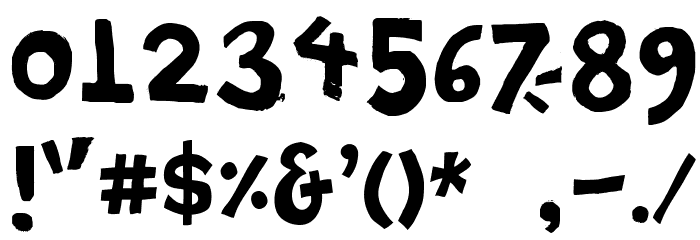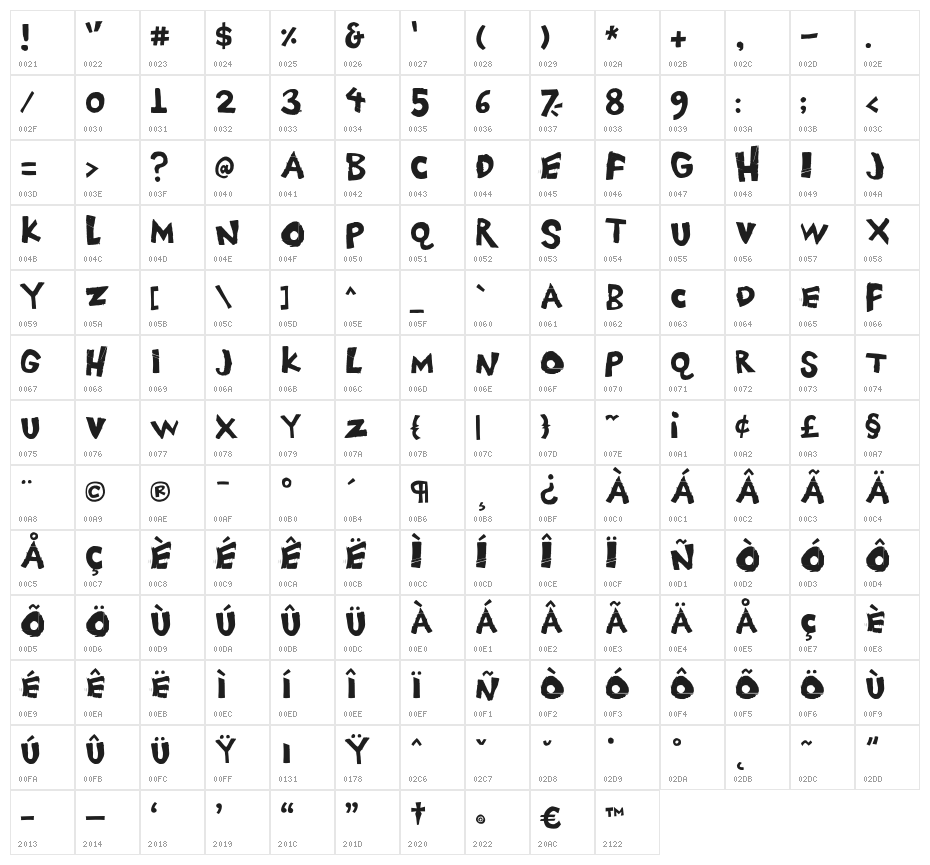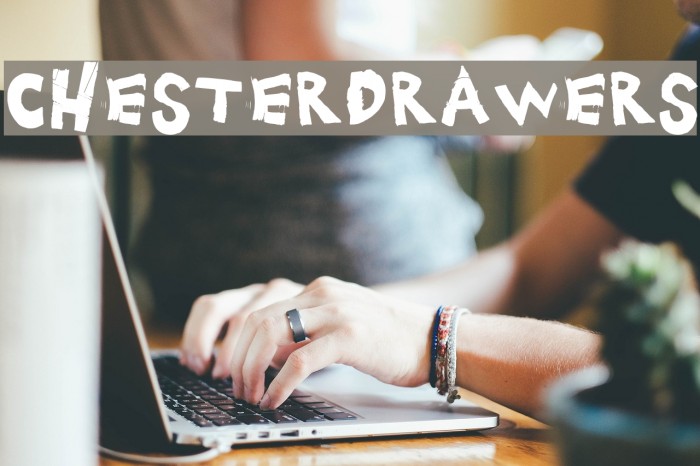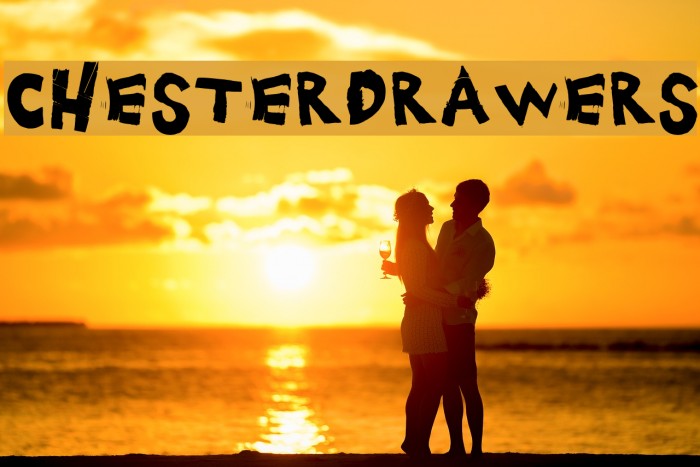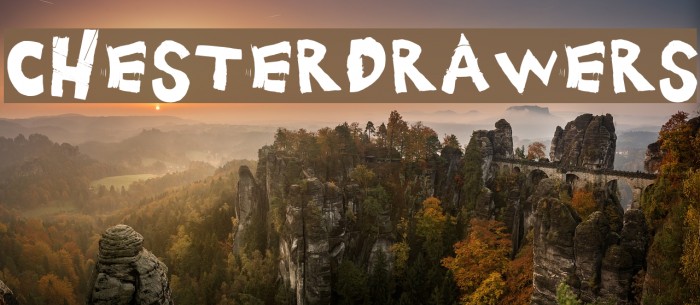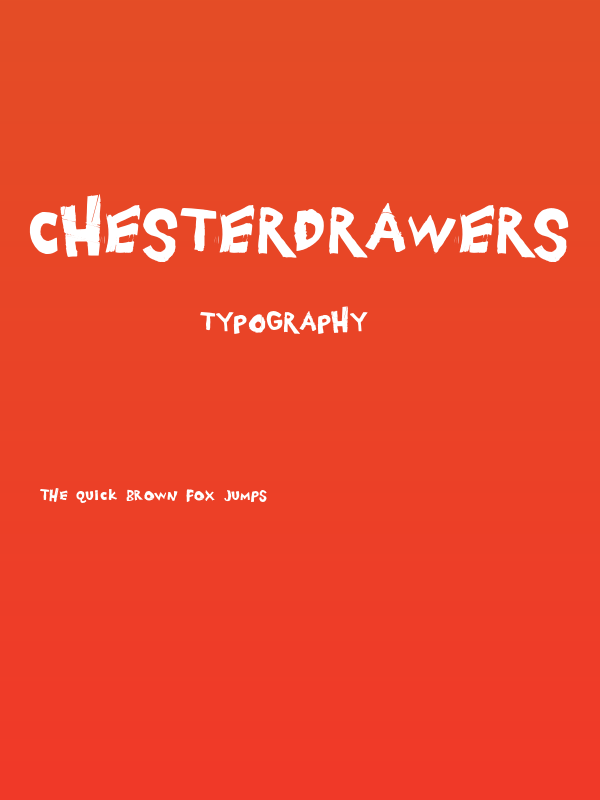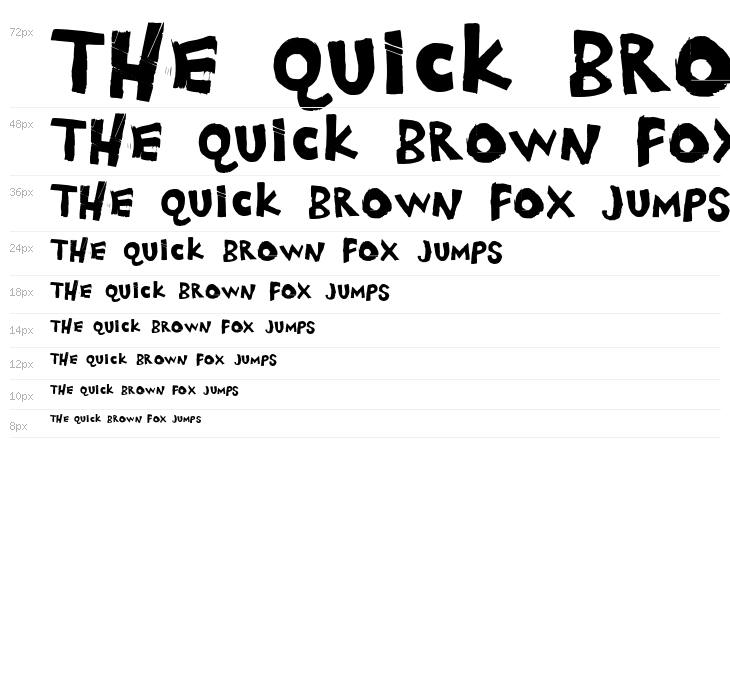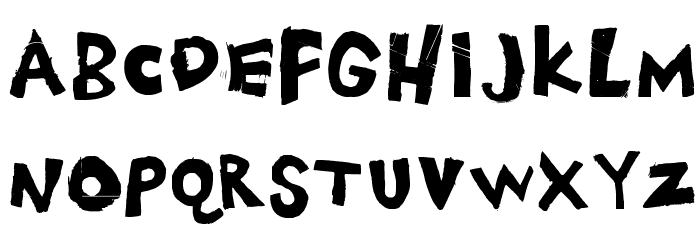
ChesterDrawers Font
ChesterDrawers Description
This font features a bold, hand-drawn style with a playful and artistic flair. The characters are uneven and slightly distorted, giving them a unique, organic appearance. The strokes are thick and exhibit a rough texture, reminiscent of brush strokes or graffiti. This font exudes a casual and informal vibe, making it ideal for creative projects that require a touch of whimsy and personality. The uppercase and lowercase letters maintain a consistent style, while the numbers and special characters complement the overall aesthetic. The font's irregularities and boldness make it stand out, perfect for grabbing attention.
| Proposed Projects | Ideal for posters, album covers, children's books, and creative branding. |